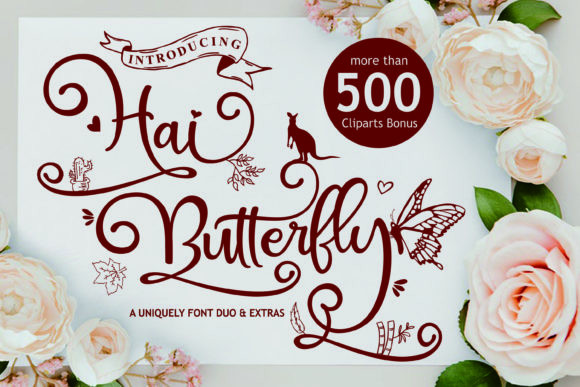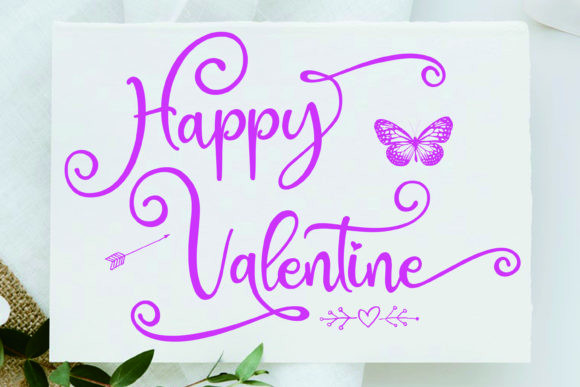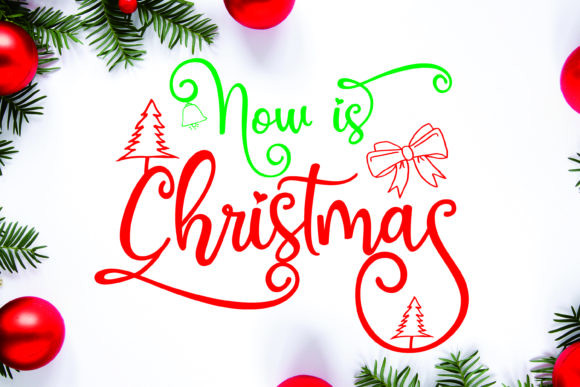
Hai Butterfly Font
Hai Butterfly duo is a match made in heaven, the playfulness of the script perfectly complements the dingbat’s style. Combining these two fonts on your next design will give it a charming and fancy feel.